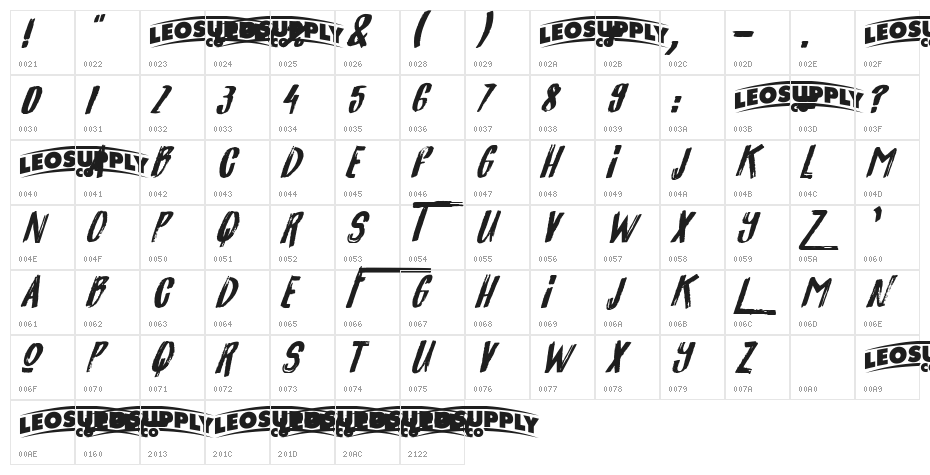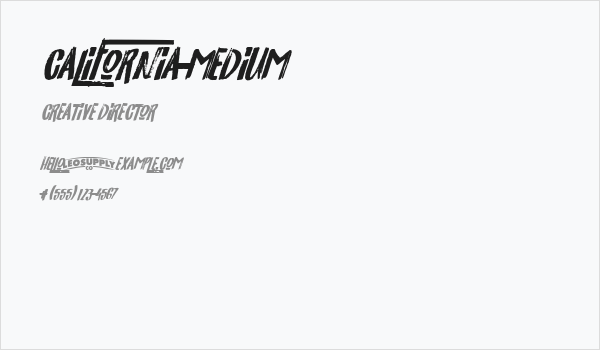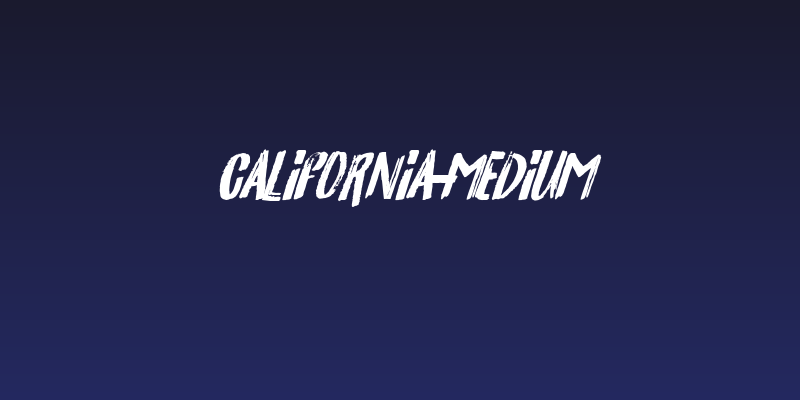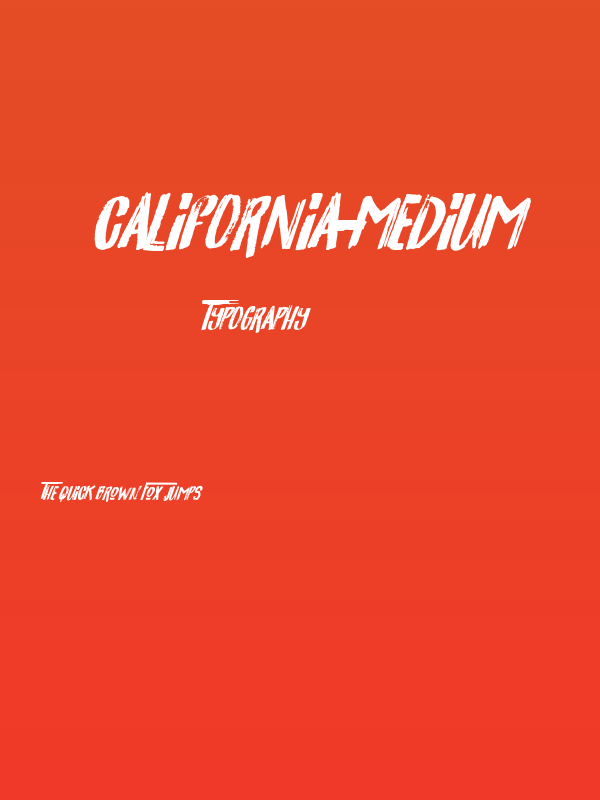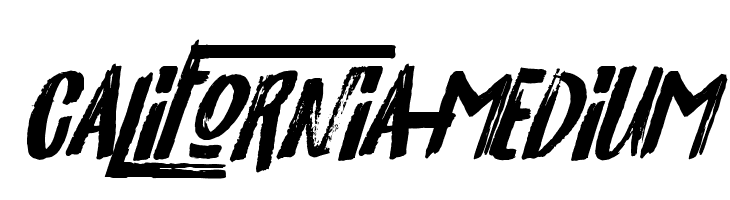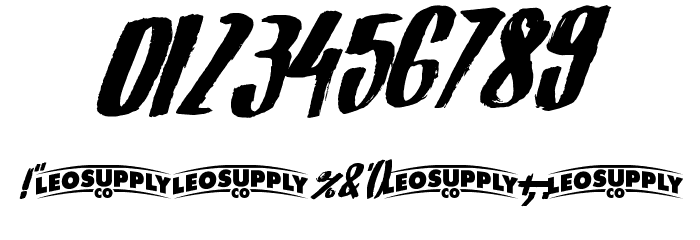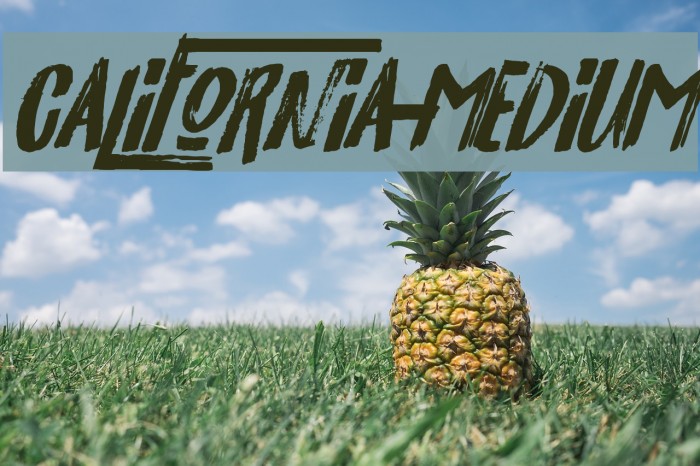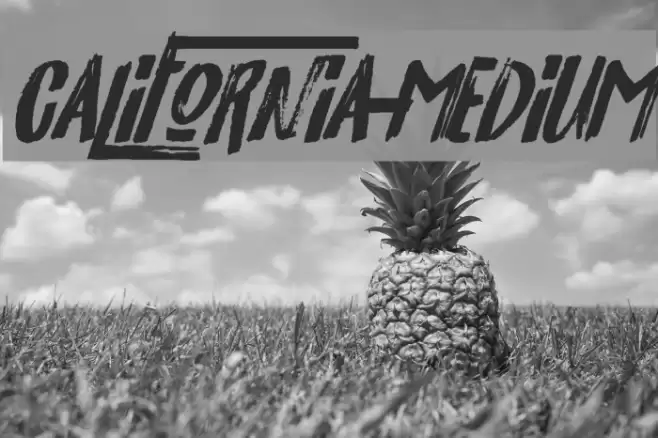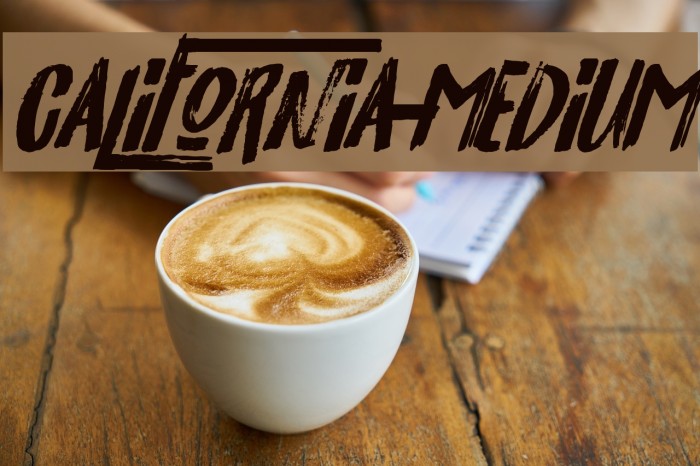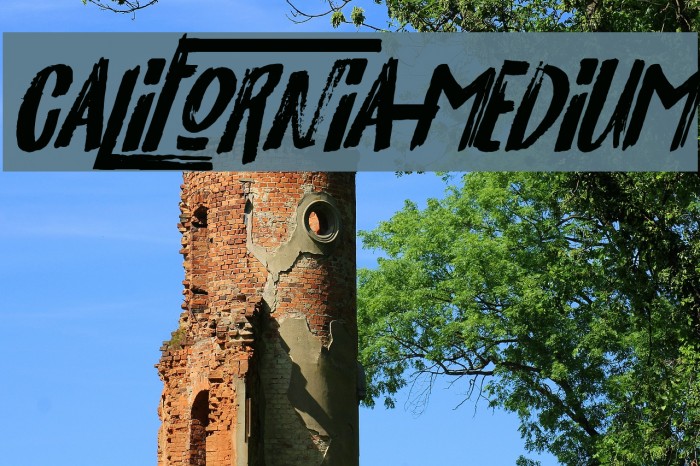
California-Medium Font
California-Medium Description
This font exudes a bold and energetic style, characterized by its brush-like strokes and dynamic appearance. The letters are crafted with a sense of movement, giving them a lively and expressive feel. The uppercase and lowercase letters maintain a consistent style, with some variations in stroke thickness that add to the font's artistic flair. The numbers and special characters follow the same energetic design, making the font versatile for various creative applications. Its unique style makes it stand out, perfect for projects that require a strong visual impact.
| Overall Style | Modern, Artistic |
| Proposed Projects | Ideal for branding, posters, album covers, and any project that needs a bold, artistic touch. |